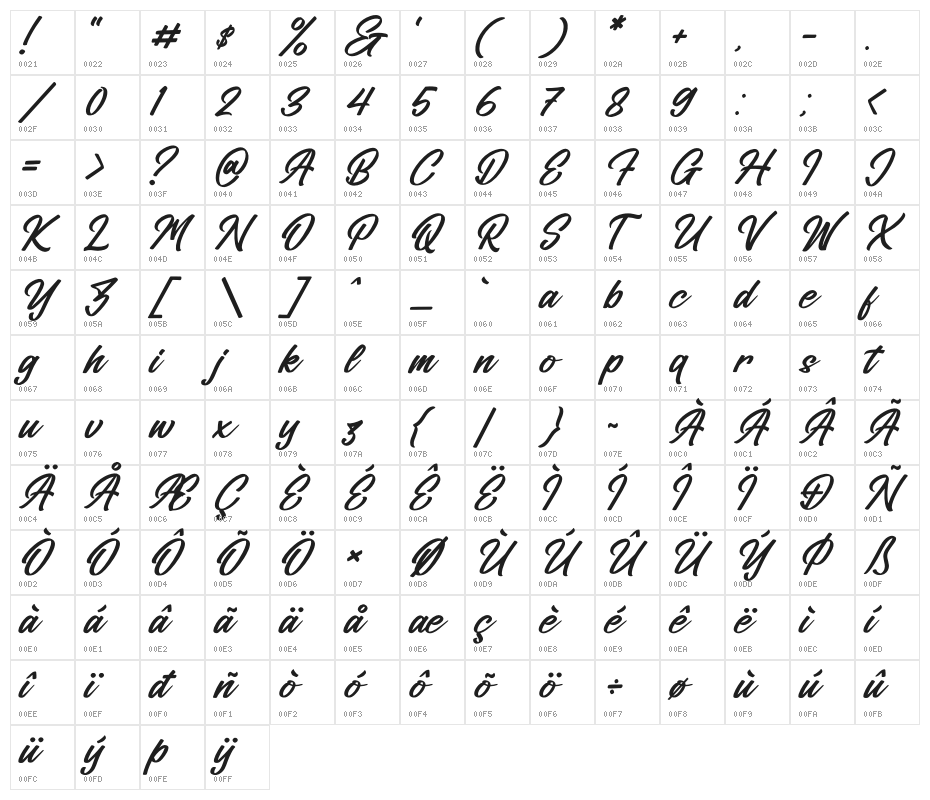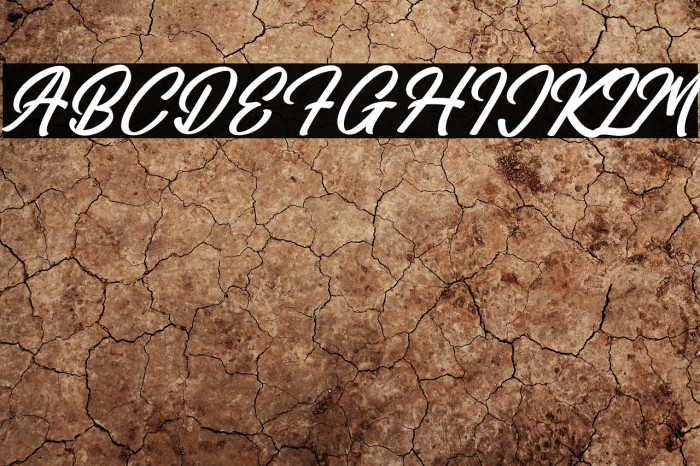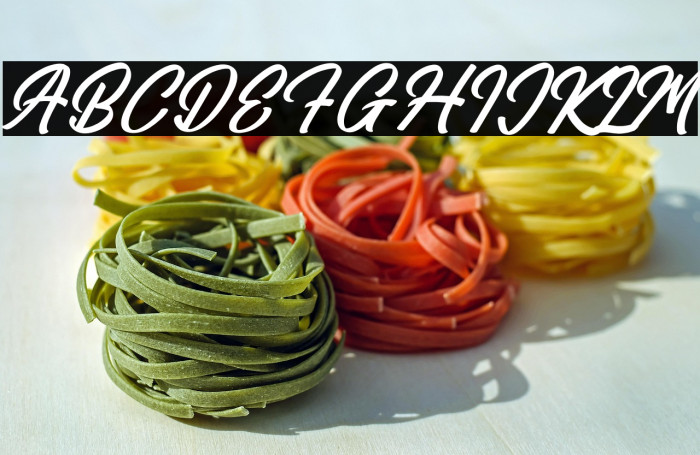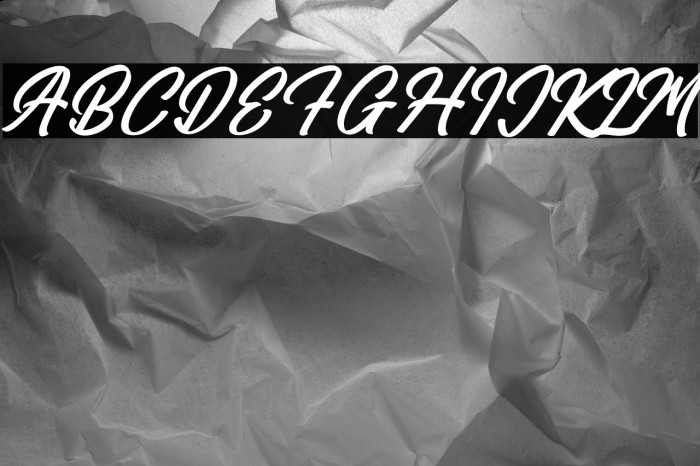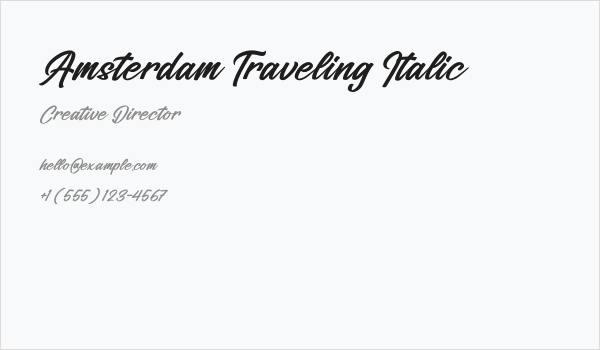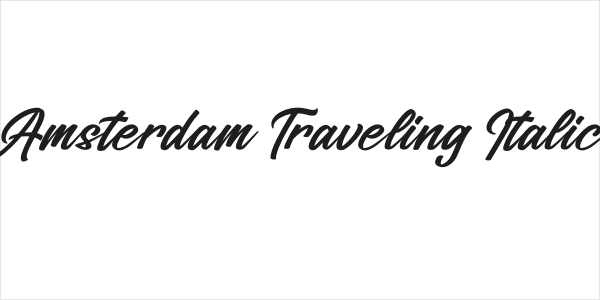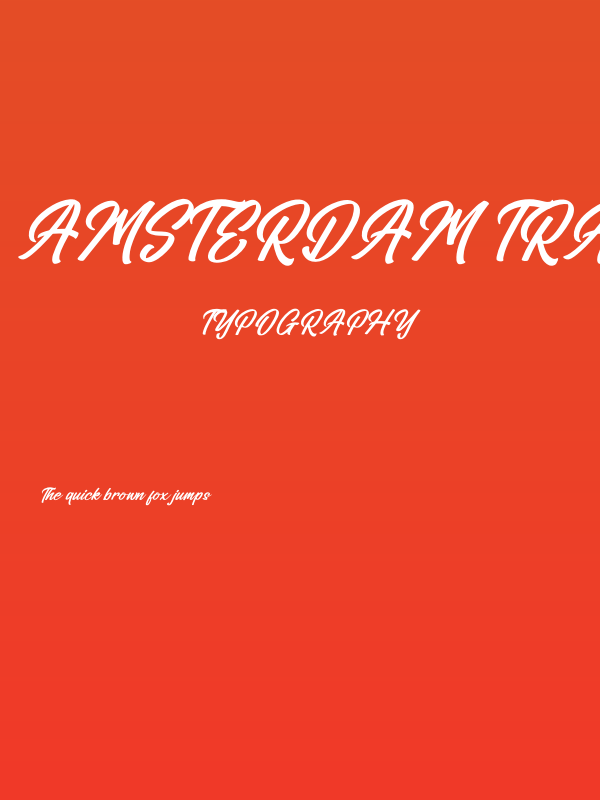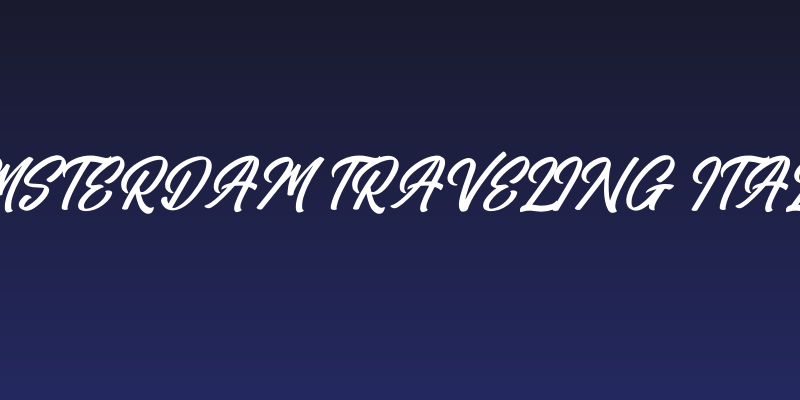
Amsterdam Traveling Italic Font
Amsterdam Traveling Italic Description
This font exudes a dynamic and flowing style, characterized by its cursive and italicized form. The letters are connected in a smooth, continuous manner, giving it a handwritten appearance. The strokes are bold and confident, with a slight slant that enhances its elegant and sophisticated look. The uppercase letters maintain a consistent height, while the lowercase letters are slightly smaller, adding to the font's readability. The numbers and special characters are crafted with the same fluidity, ensuring a cohesive overall design. This font is perfect for projects that require a personal touch or a sense of movement and energy.
Overall StyleElegant, Handwritten
Use CaseLogos, Invitations, Personal Branding
Proposed ProjectsIdeal for wedding invitations, greeting cards, personal branding, and elegant packaging designs.